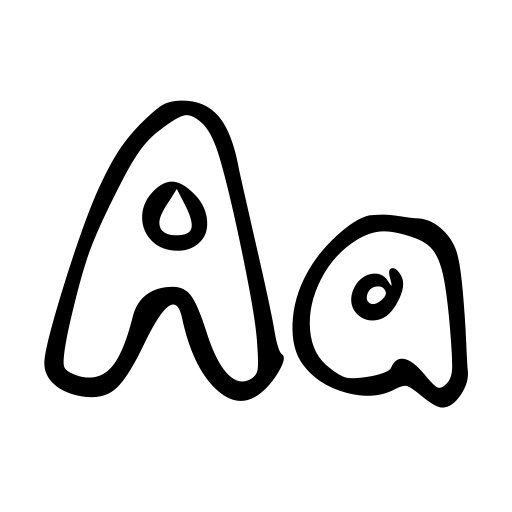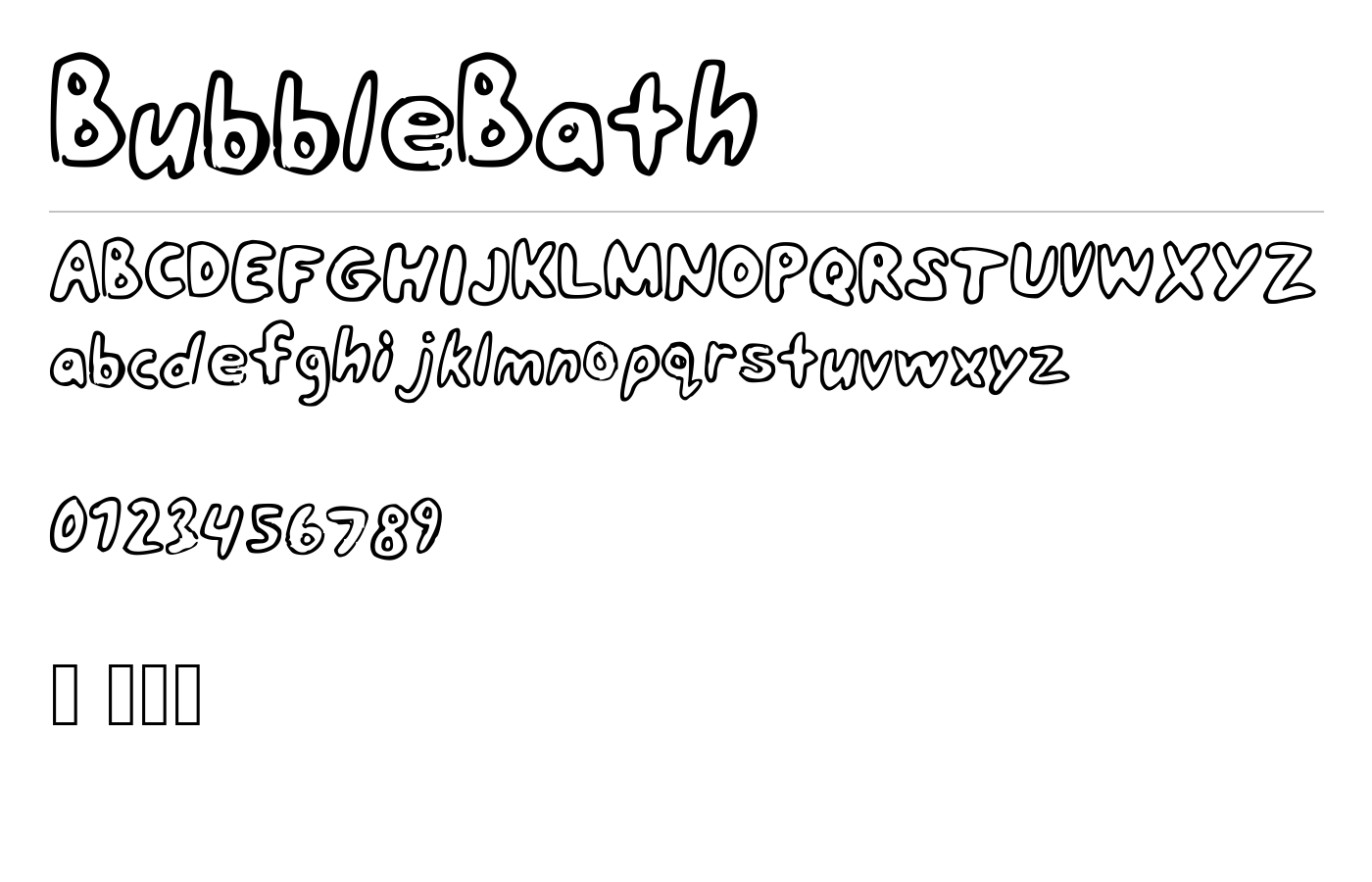
BubbleBath is a playful, hand-drawn sans serif font with bubbly, irregular shapes that evoke a casual, fun vibe. Its thick and uneven strokes combined with unique letterforms make it ideal for children's designs, informal branding, and creative projects seeking a cheerful, whimsical touch. This font works best for headlines, logos, and packaging where a lively, friendly personality is desired.
BubbleBath Font
About BubbleBath Font